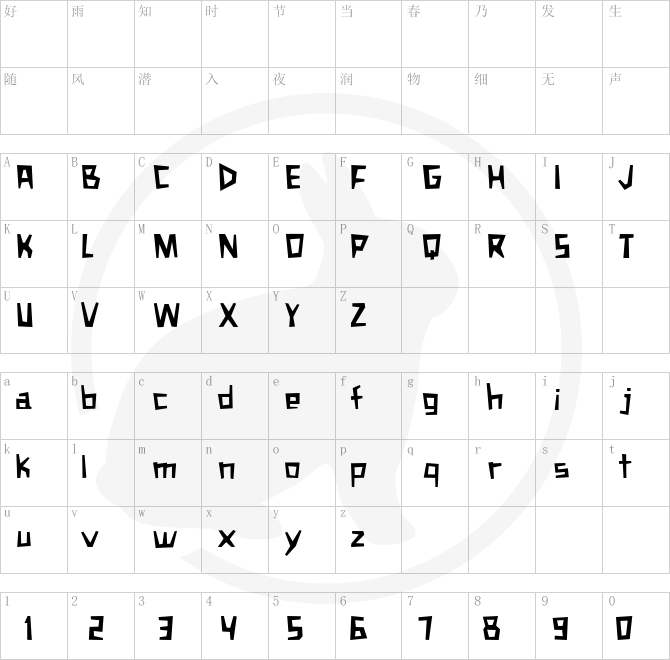
- Font Name:Xilosa
Xilosa.ttf is a very beautiful artistic font, Xilosa.ttf is widely used in the design and printing of various books and pictures,Xilosa.ttf has a strong visual impact,Xilosa.ttf is a commonly used font in newspapers, magazines and books, and is used in posters, e-commerce Poster design, store design, logo design, font design and other fields.Xilosa.